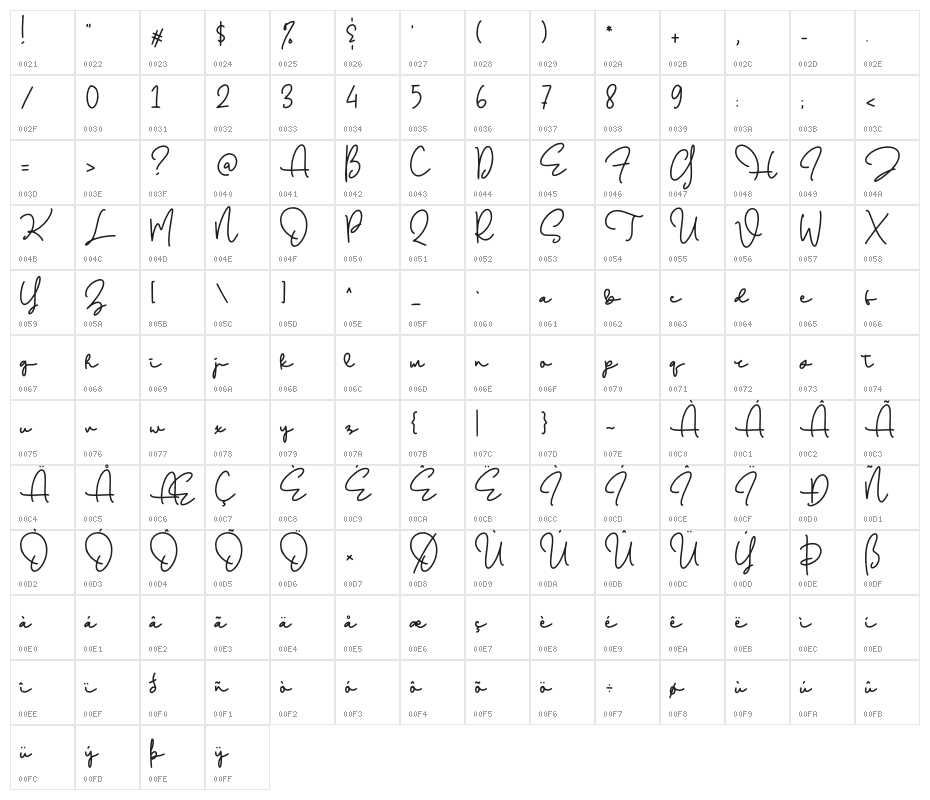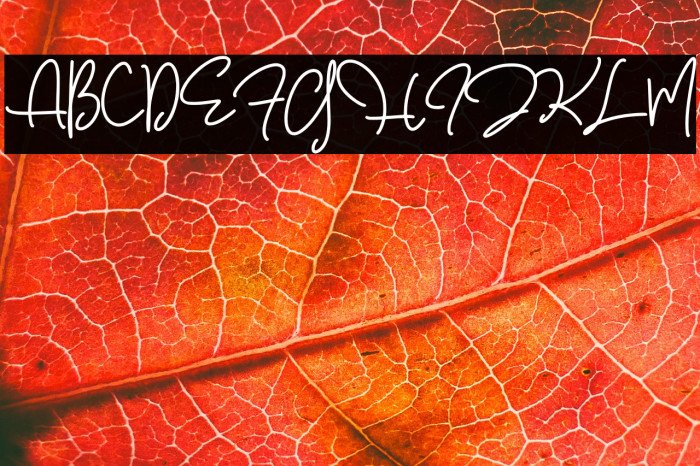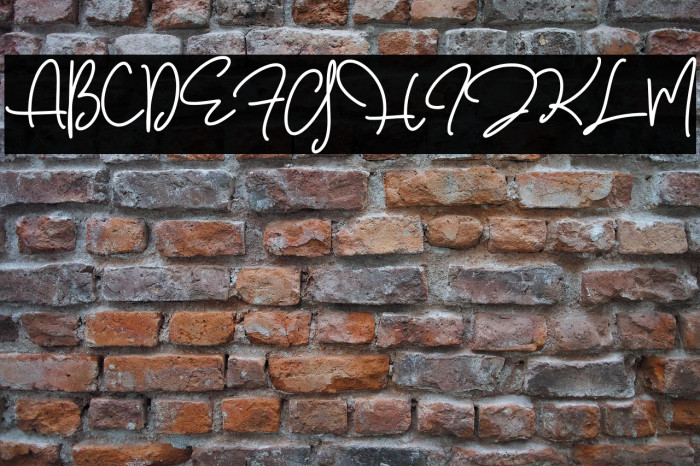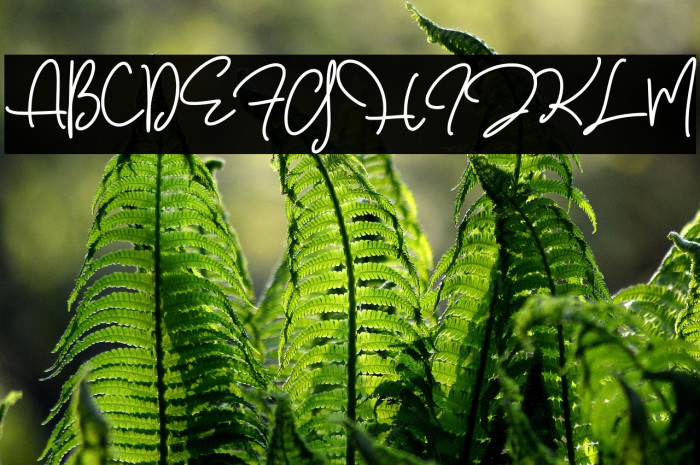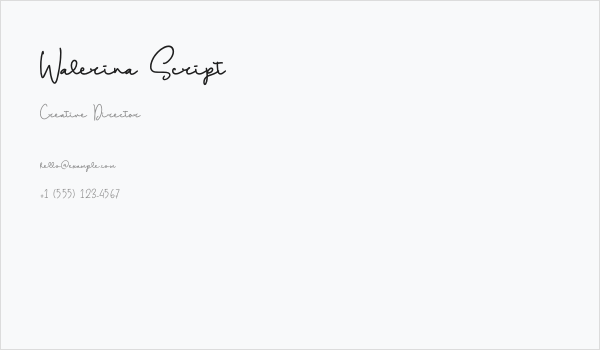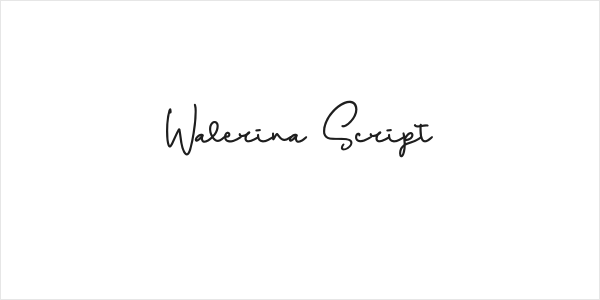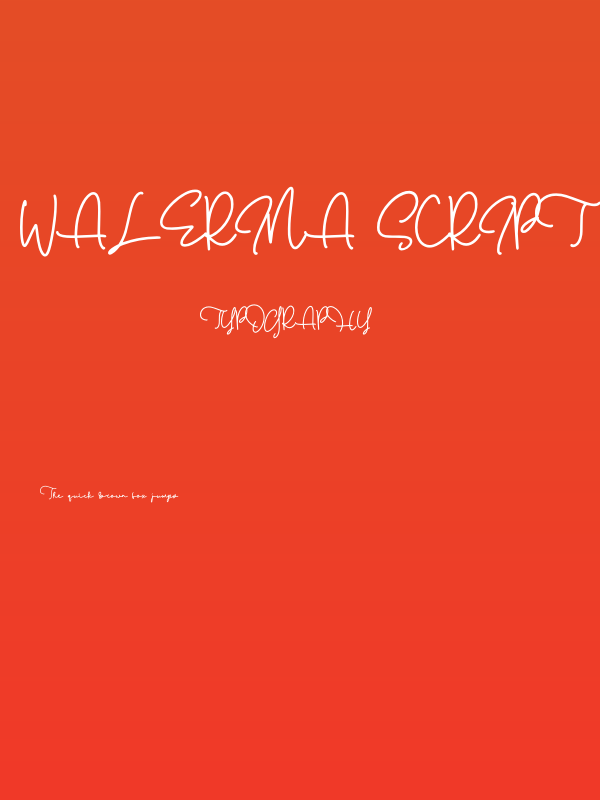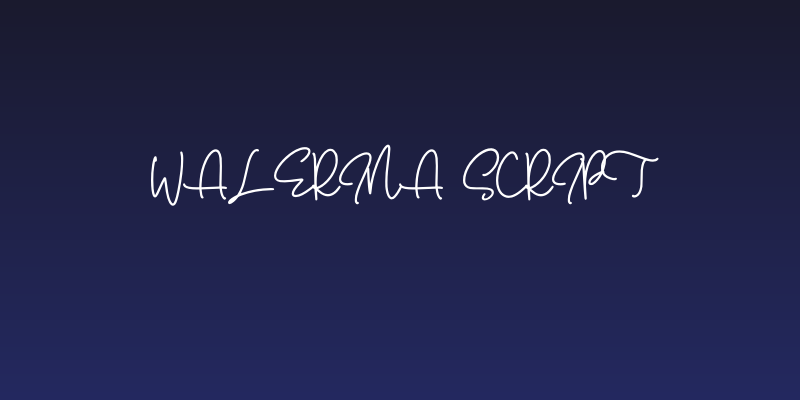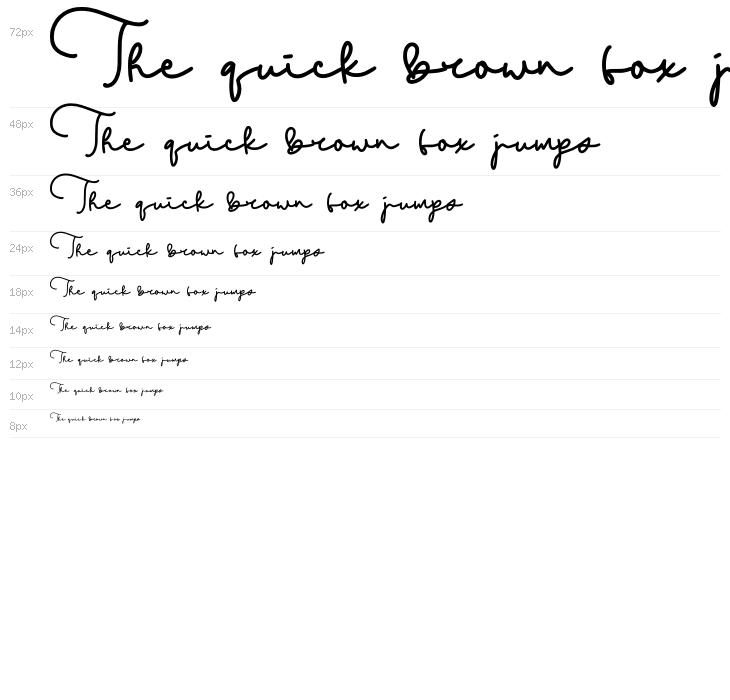
Walerina Script Font
Walerina Script Description
This font features a flowing, cursive style that mimics elegant handwriting. The letters are interconnected with smooth, sweeping strokes, giving it a fluid and graceful appearance. The uppercase letters are particularly ornate, with loops and curves that add a touch of sophistication. The lowercase letters maintain a consistent style, ensuring readability while retaining the script's charm. Numbers and special characters are designed to match the overall aesthetic, with a playful yet refined look. This font is perfect for projects that require a personal and artistic touch.
| Use Case | Logos, Invitations, Artistic projects |
| Proposed Projects | Ideal for wedding invitations, greeting cards, personal branding, and artistic projects. |